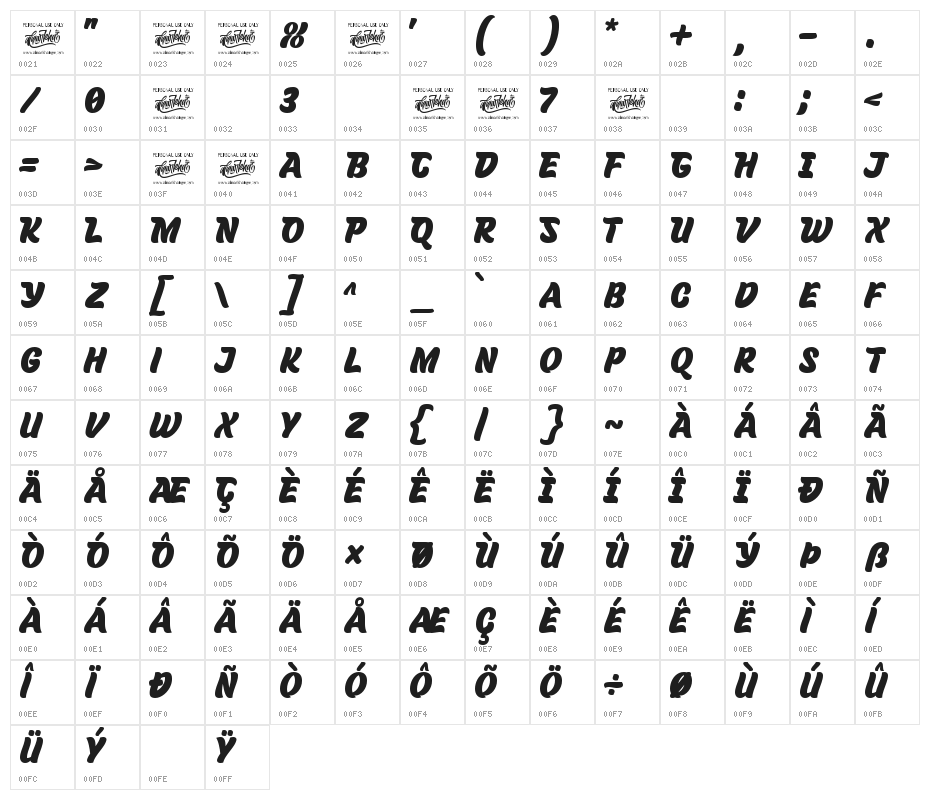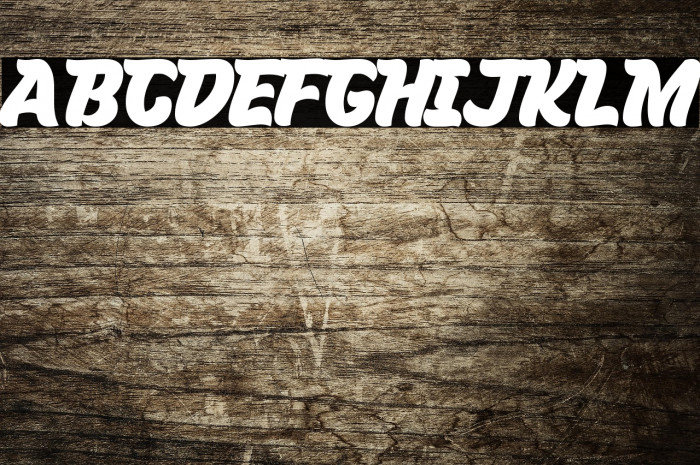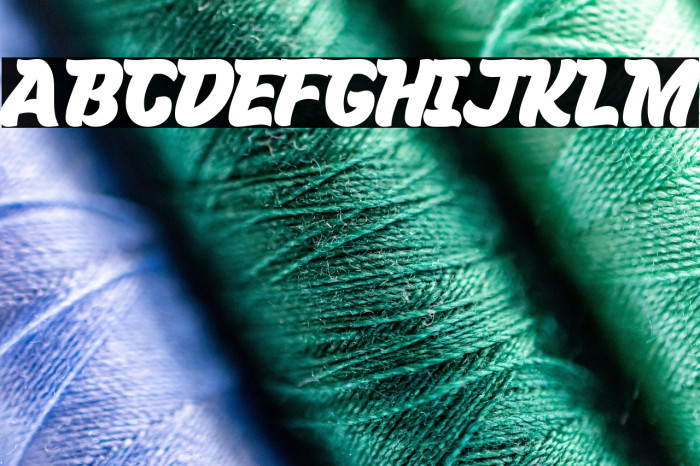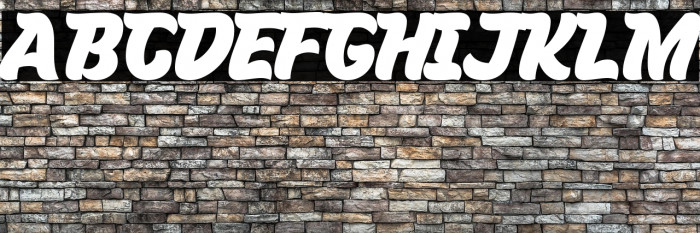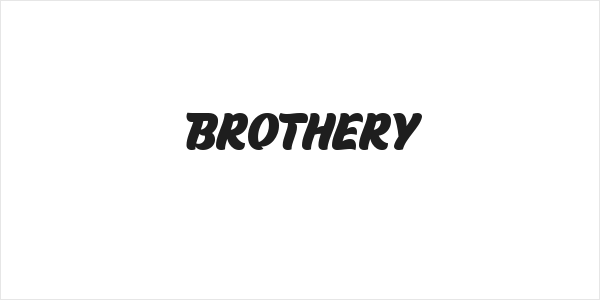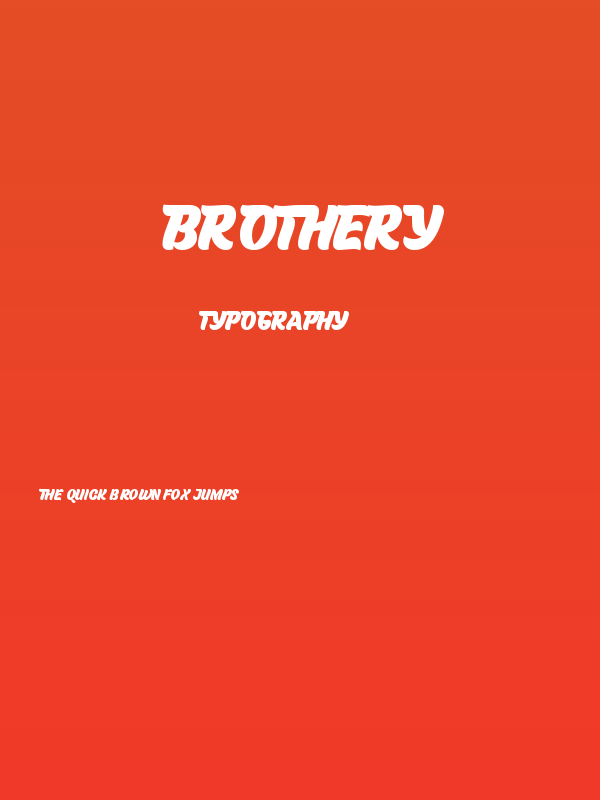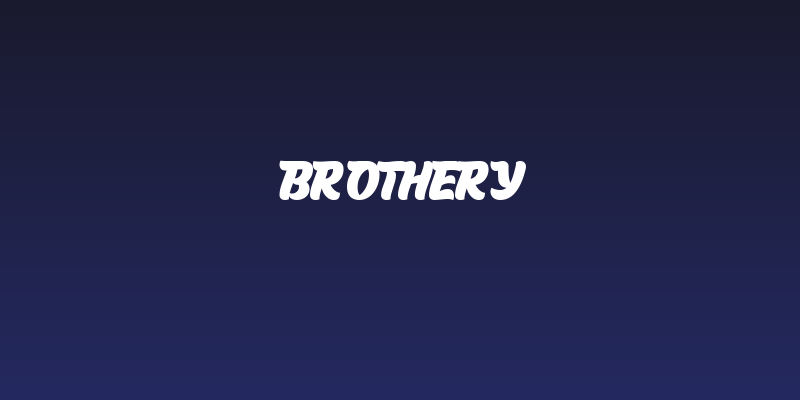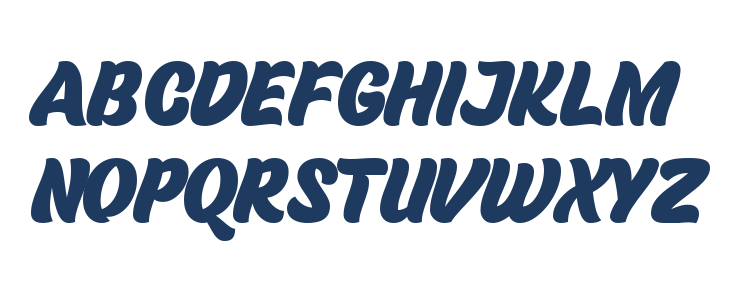
Brothery Font
Brothery Description
This font features a bold and dynamic script style with a strong presence. The characters are crafted with smooth, flowing strokes that give it a sense of motion and energy. The uppercase letters are particularly striking, with a slightly slanted orientation that enhances the font's lively appearance. The lowercase letters maintain a consistent style, complementing the uppercase with their rounded forms and fluid connections. The numbers and special characters are designed to match the overall aesthetic, ensuring a cohesive look across all text. This font is ideal for projects that require a bold and expressive typeface.
| Proposed Projects | Perfect for branding, logos, headlines, posters, and any design that needs a bold, expressive touch. |